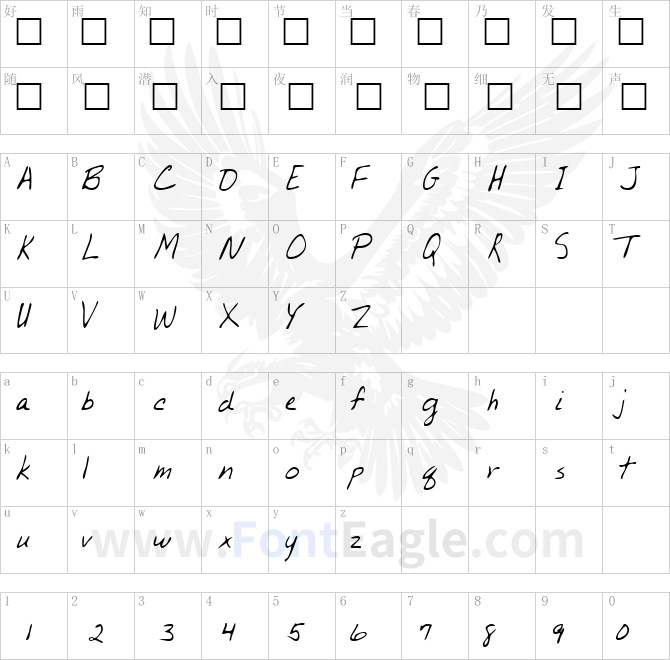
- Font name:KarinsHand
- Font Subfamily ID:Weatherly Systems, Inc. KarinsHand Regular
- Font Full Name:KarinsHand Regular
- Postscript:KarinsHand-Plain